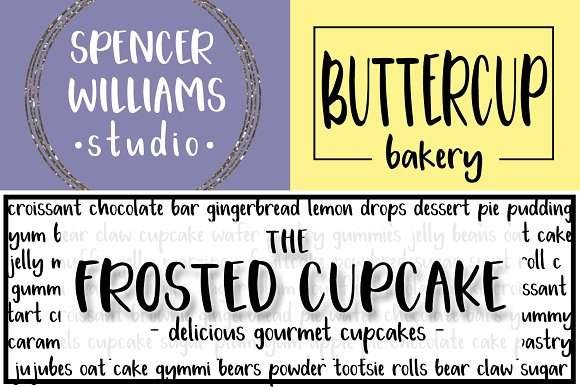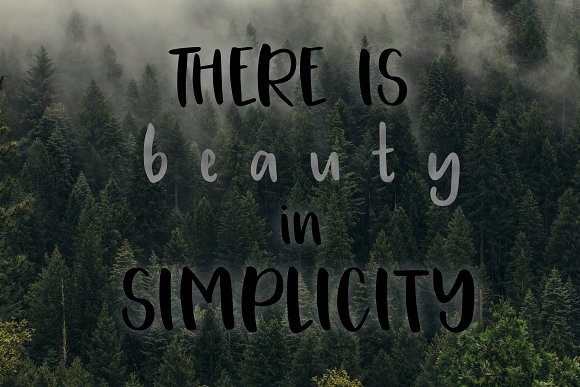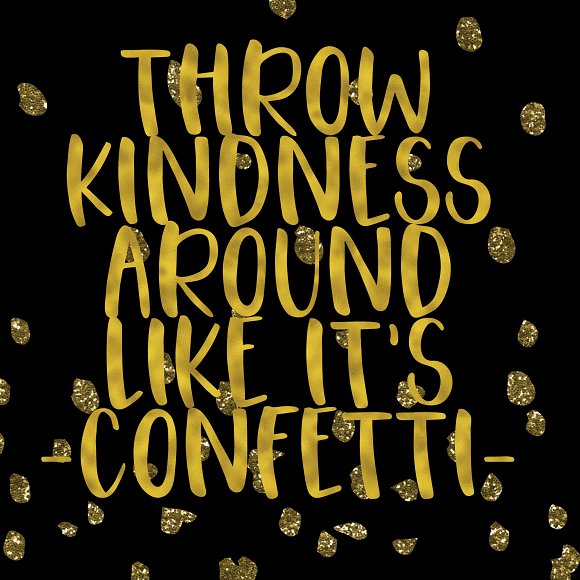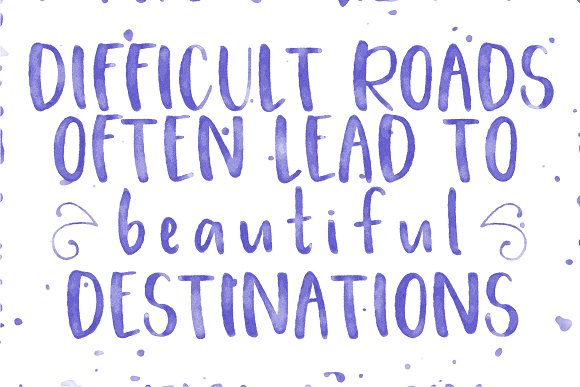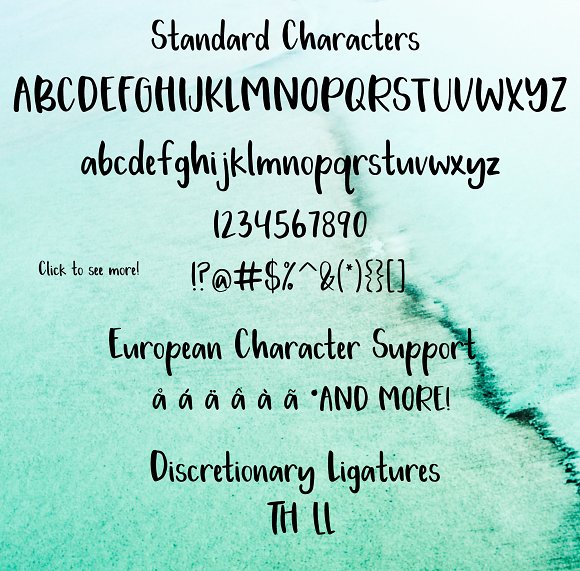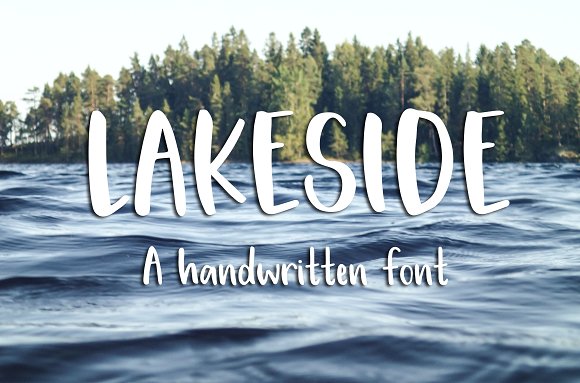
Lakeside Font
Lakeside is a fun, handwritten font that will look perfect on your designs, logos, packaging, greeting cards, social media, prints, and more!